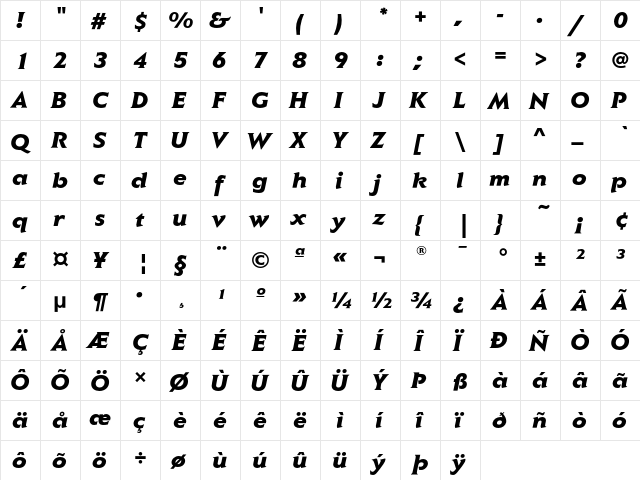
ElanEF BlackItalic
Design Context for ElanEF Typeface
ElanEF is a composed and adaptable typeface that performs quietly and consistently across a wide range of design contexts. The dynamic lean of this cut emphasises speed and emphasis in any layout.
Pro Tip: Use ElanEF for emphasis, pull quotes, and subheadings where its slanted energy can add rhythm to the layout.